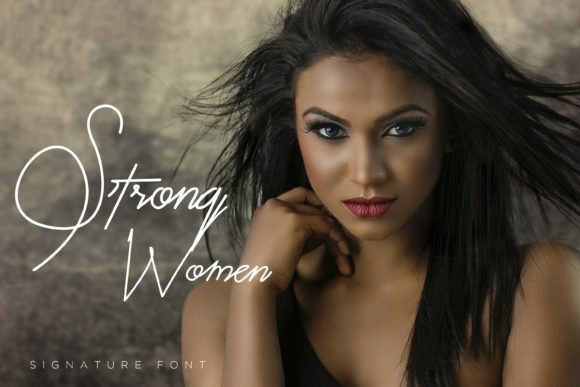
Discover the Magic of Kitti Script Font
Do you remember the moment when you found that perfect font that made your design project come alive? For many designers, that moment is a rush of excitement and a dash of creativity. And today, we’re excited to share with you one such gem – the Kitti Script Font. This gorgeous signature font is a treasure trove of unique charm, waiting to elevate your next creative project to new heights.
With its high-quality design and transparent background, the Kitti Script Font is a valuable resource for designers looking to add a personal touch to their work. Whether you’re working on a branding project, a wedding invitation, or a social media graphic, this font is sure to inspire your creativity. And the best part? It’s available for free download, making it an accessible design resource for designers of all levels.
Key Features of Kitti Script Font
- High-quality, elegant design perfect for creative projects, such as wedding invitations, greeting cards, and social media graphics.
- Features a transparent background, allowing for seamless integration with other design elements and backgrounds.
- Designed with a unique, handwritten style that adds a touch of personality to any project.
Honest Review: Kitti Script Font
I recently had the chance to work with the Kitti Script Font, and I’m excited to share my thoughts on this design resource. One of the things that stands out about this font is its high quality and versatility. ✨ It’s perfect for creative projects where you need a touch of elegance and sophistication.
- Beautiful, flowing script style that’s great for headings and titles
- High-quality design that’s sure to impress
One of the things I love about the Kitti Script Font is its transparent background, making it easy to use in a variety of design contexts.
While the Kitti Script Font is a great addition to any designer’s toolkit, there are a few limitations to be aware of. ⚠️ For one, it’s a script font, so it may not be the best choice for projects that require a more straightforward, sans-serif font. Additionally, the font may not be as versatile when it comes to different font sizes and styles.
Overall, I’m really impressed with the Kitti Script Font, and I think it’s a great choice for designers looking for a high-quality, creative font to add to their design arsenal.
Introduction to Kitti Script Font
Kitti Script Font is a beautiful, high-quality design resource ideal for creative projects. With its elegant and stylish look, it’s perfect for adding a touch of sophistication to your designs.
The Kitti Script Font is perfect for:
- Birthday invitations and cards
- Quotes and posters
- Business branding and marketing materials